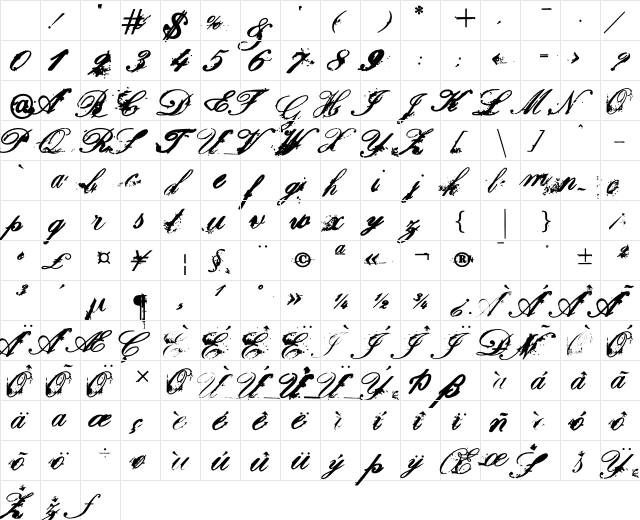
Complete ChatoBand Space Regular glyph index. Displaying only characters natively supported by ChatoBand Space Regular font.
ChatoBand Space is a composed and adaptable typeface that performs quietly and consistently across a wide range of design contexts.